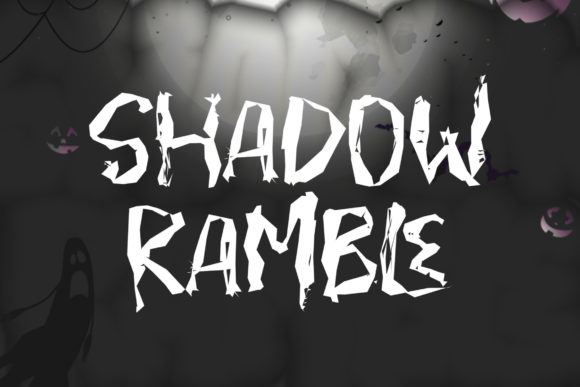
Introducing Shadow Ramble - the font that will make your designs stand out from the crowd!
This brushed, graffiti-styled display font oozes with a creepy vibe that's perfect for creating designs that are both eye-catching and memorable. Whether you're designing t-shirts, sportswear, logos, advertisements, or clothing, Shadow Ramble is the perfect choice to add a touch of edge and personality.
With its unique and expressive style, Shadow Ramble is sure to capture the attention of anyone who sees it. It's the perfect font for creating designs that are both stylish and impactful.